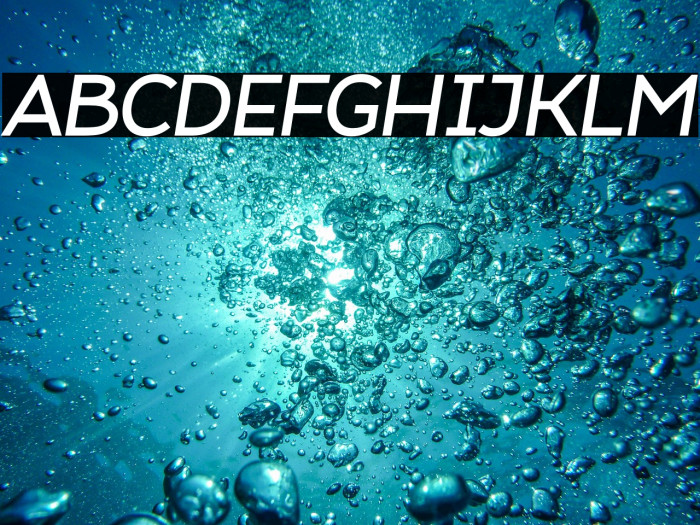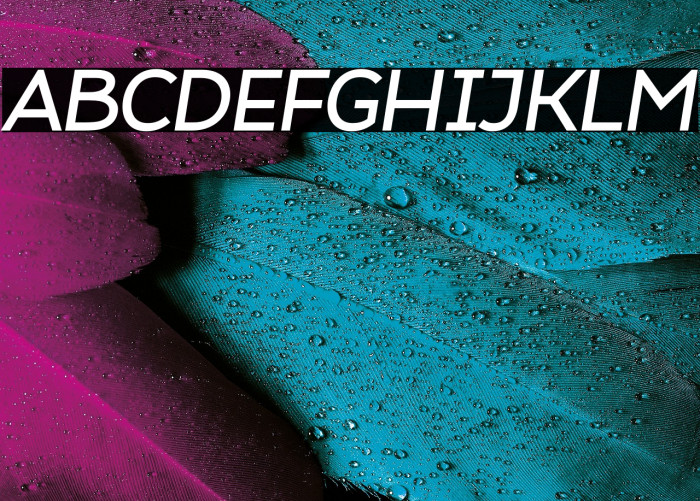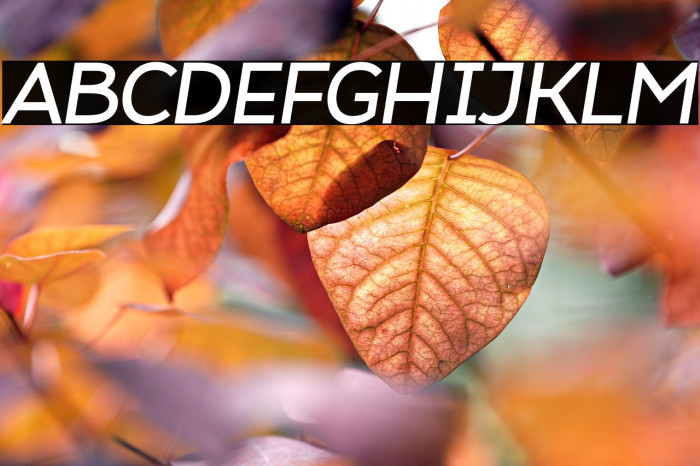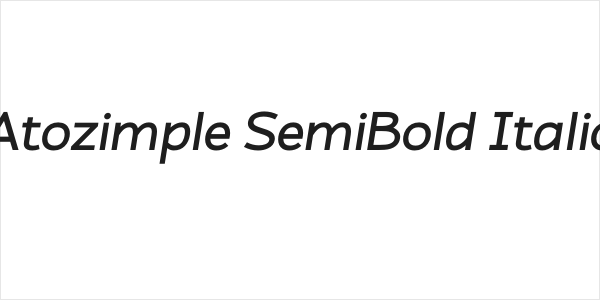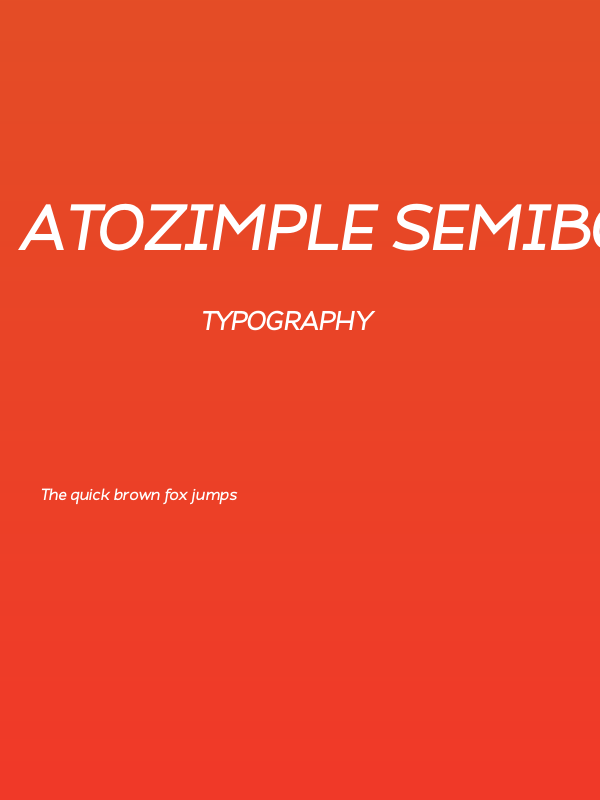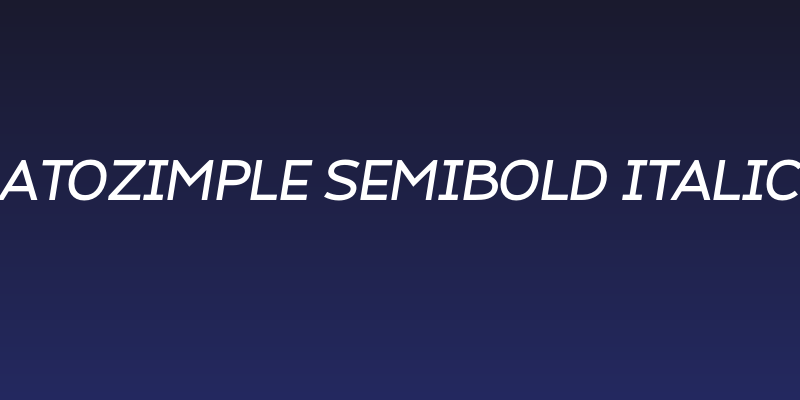
Atozimple SemiBold Italic Font
Atozimple SemiBold Italic Description
This font features a clean and modern design with a semi-bold weight, providing a strong yet elegant appearance. The italic style adds a dynamic and forward-leaning character, making it suitable for contemporary and professional applications. The characters are well-proportioned with a slight slant, enhancing readability while maintaining a stylish look. The numerals and special characters are consistent with the overall design, ensuring uniformity across different uses. The font's smooth curves and sharp edges create a balanced contrast, making it versatile for various design needs.